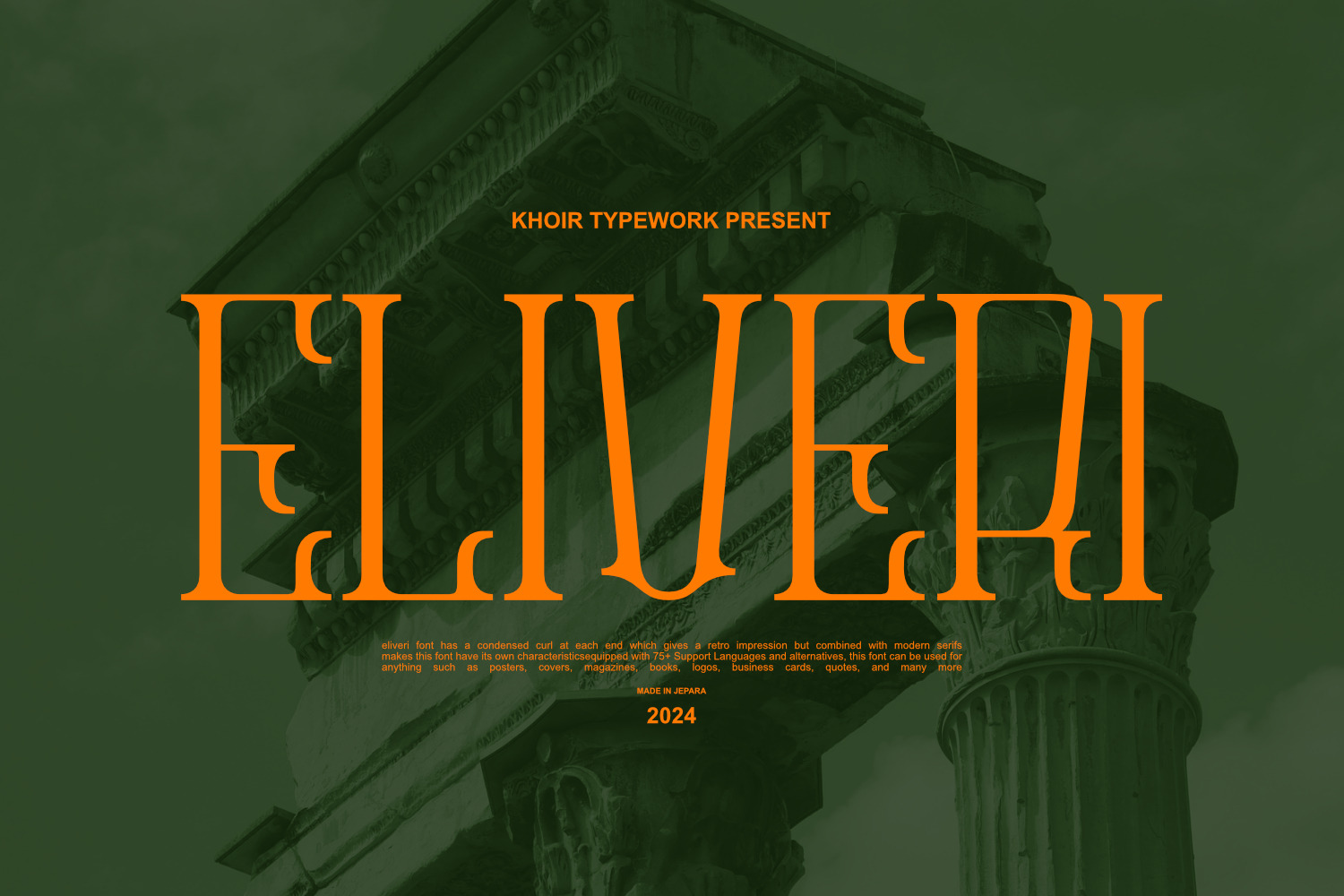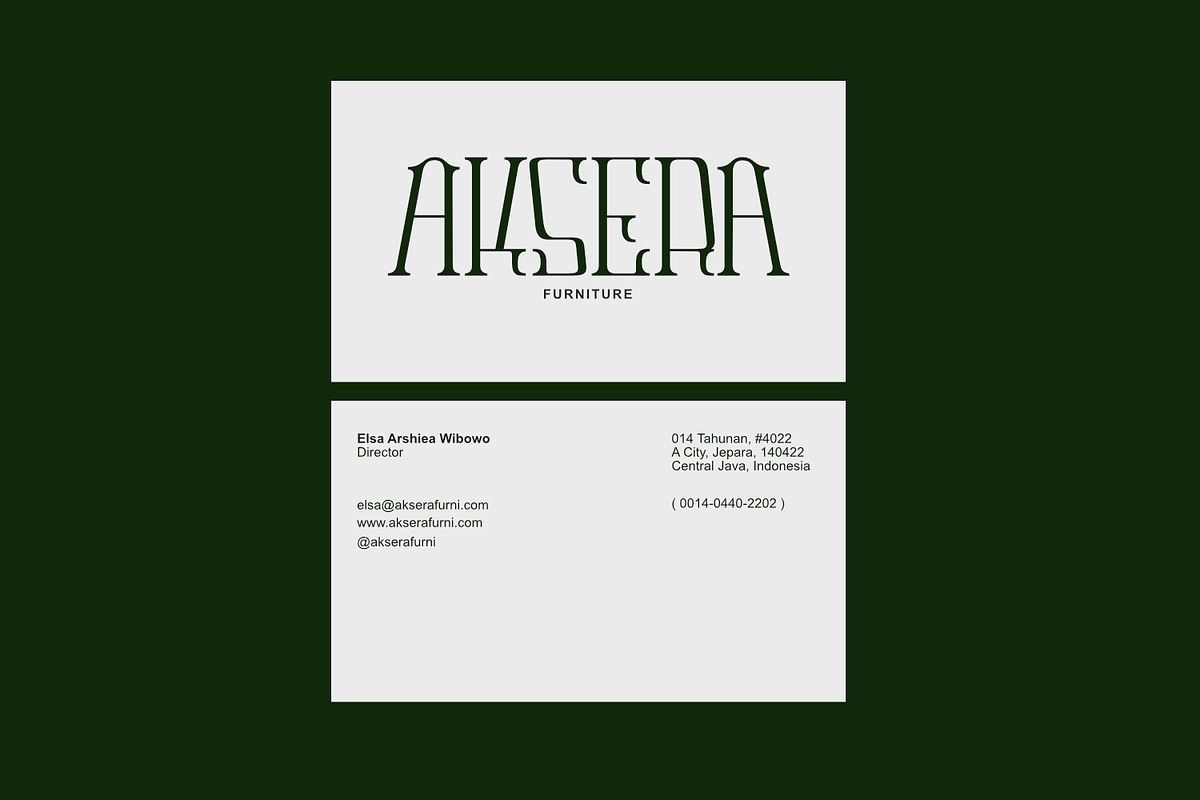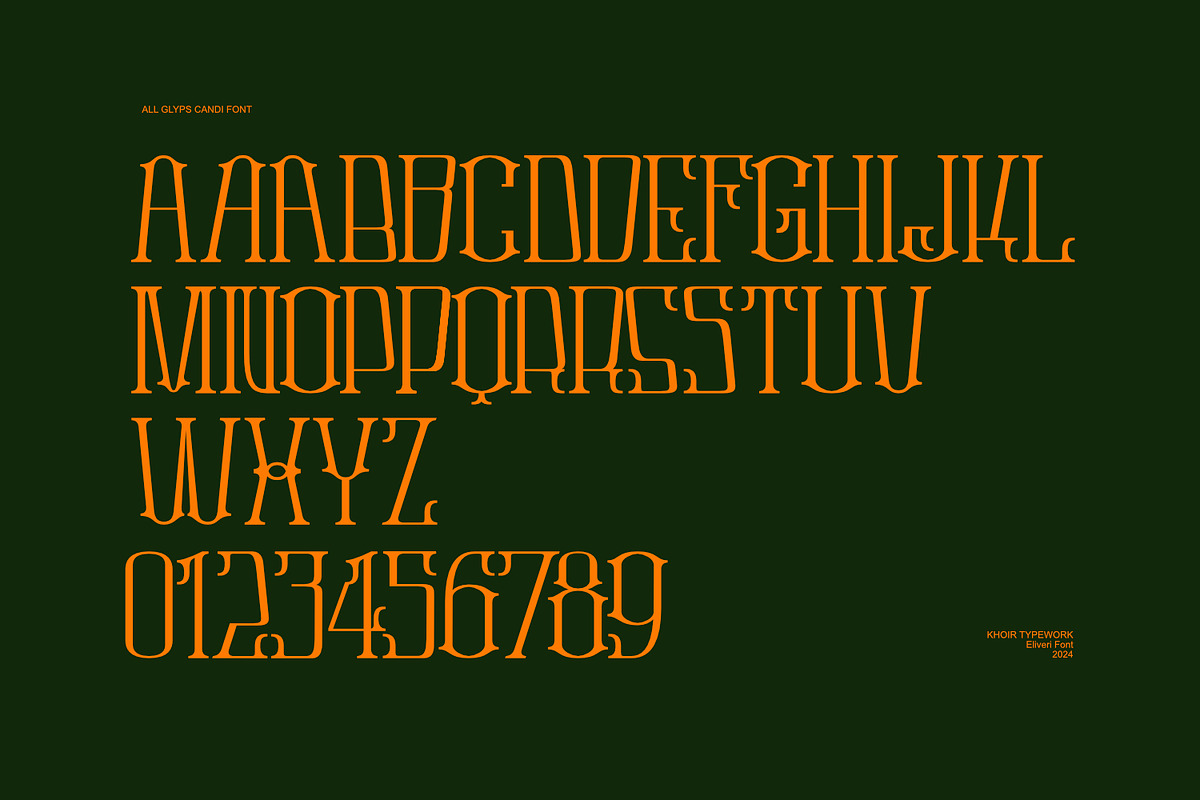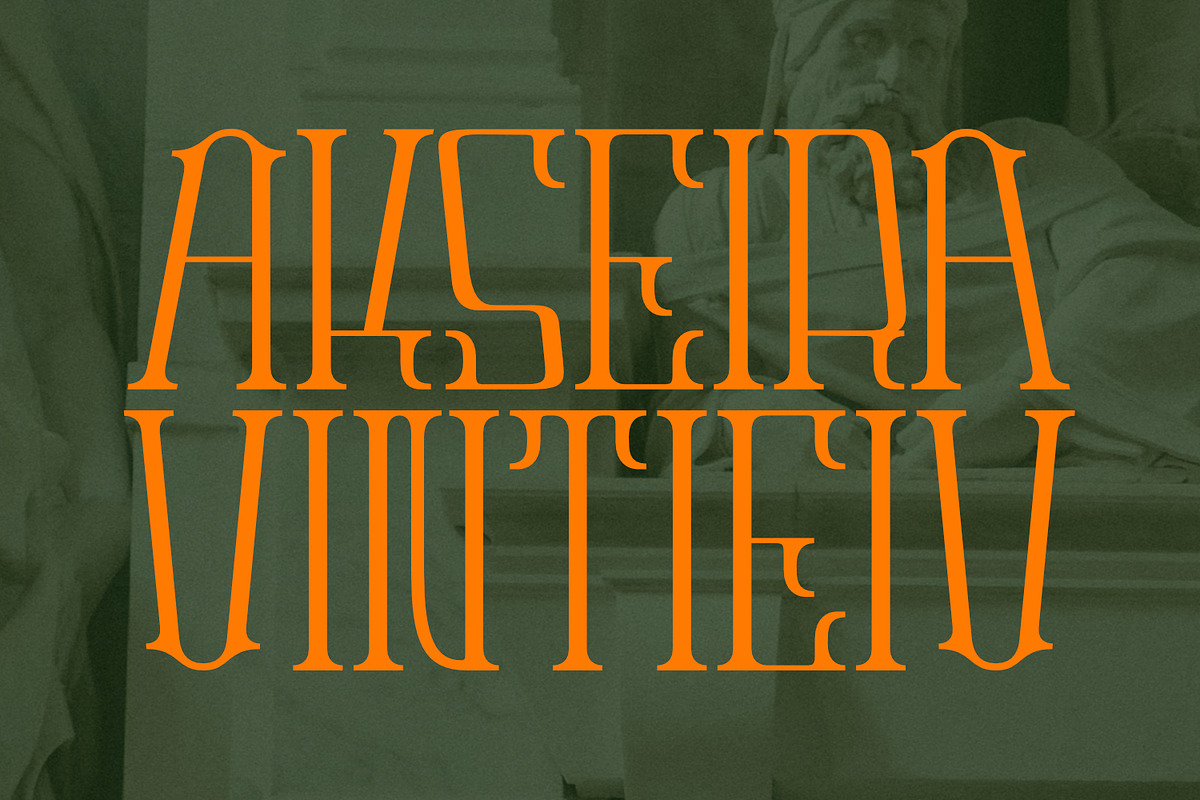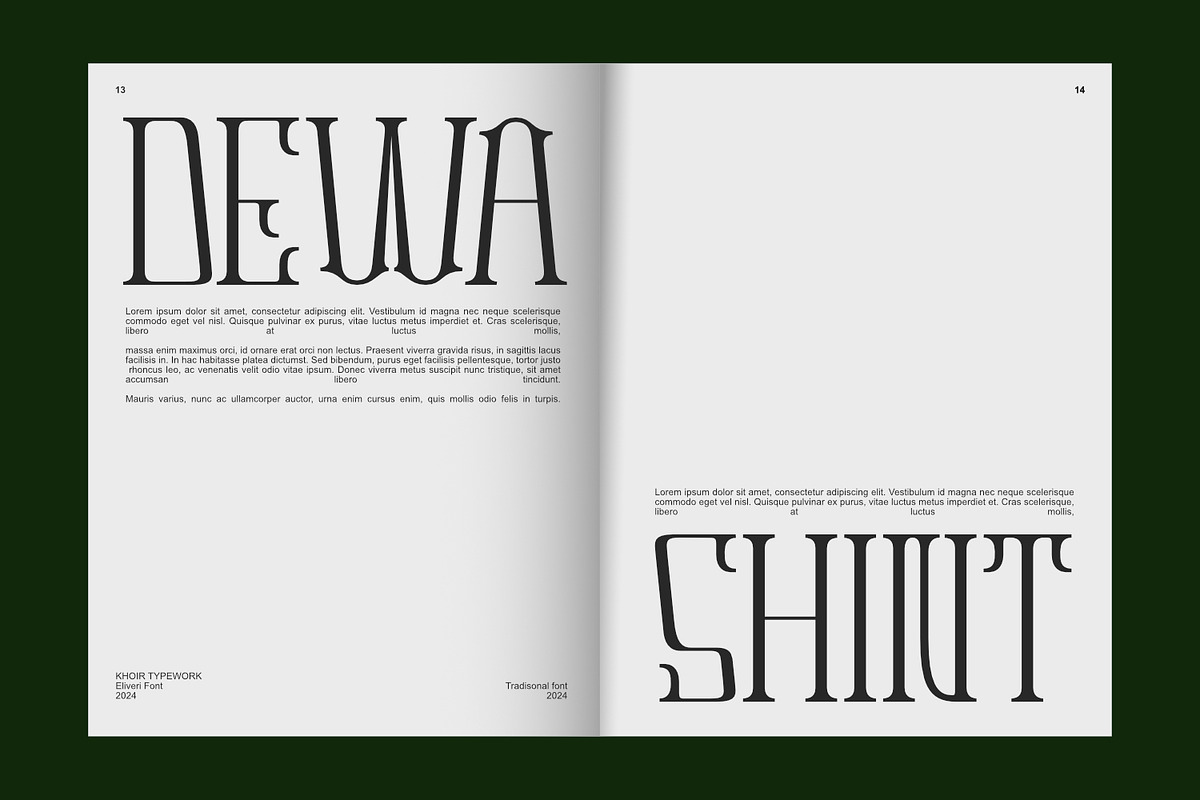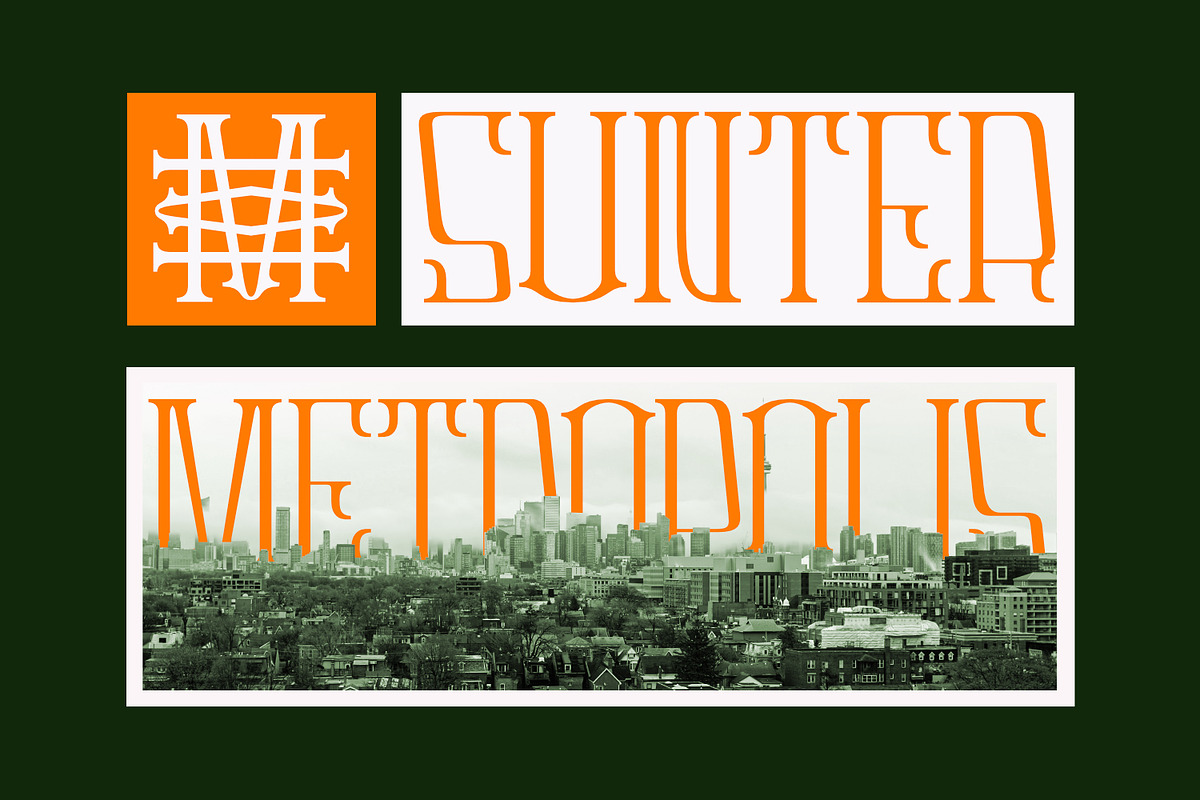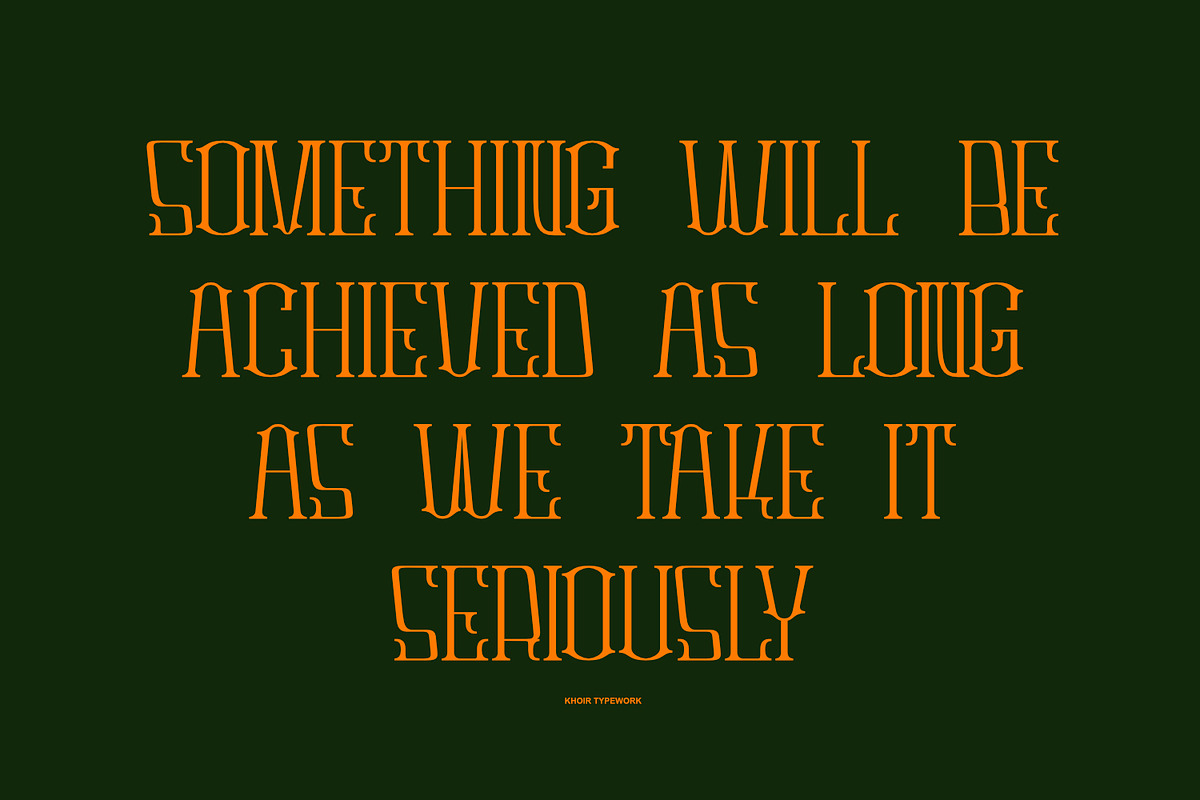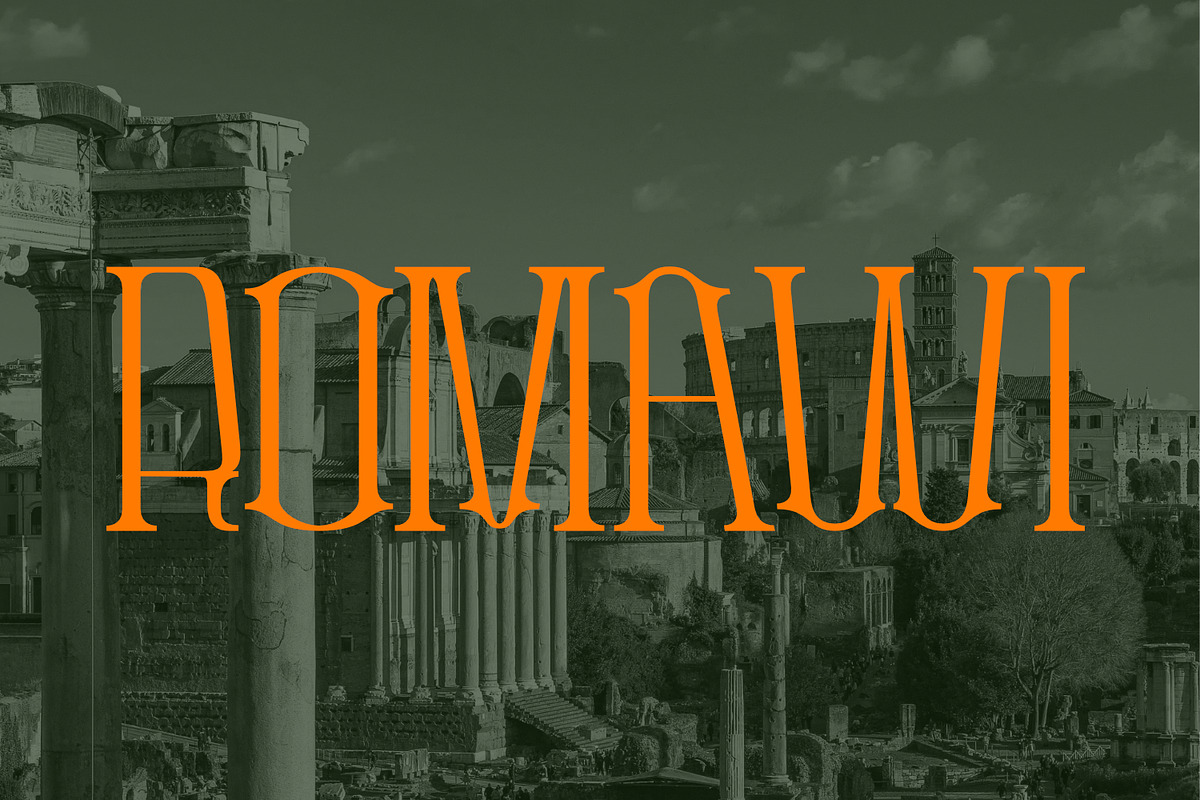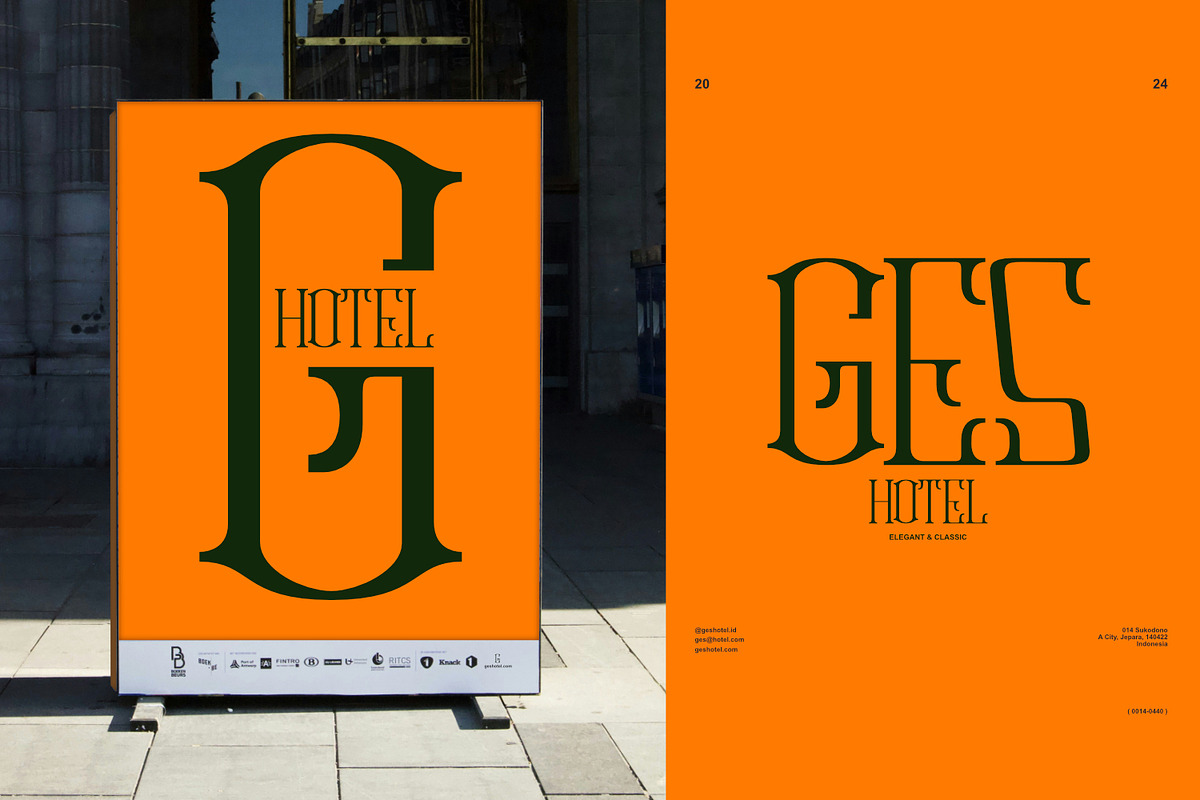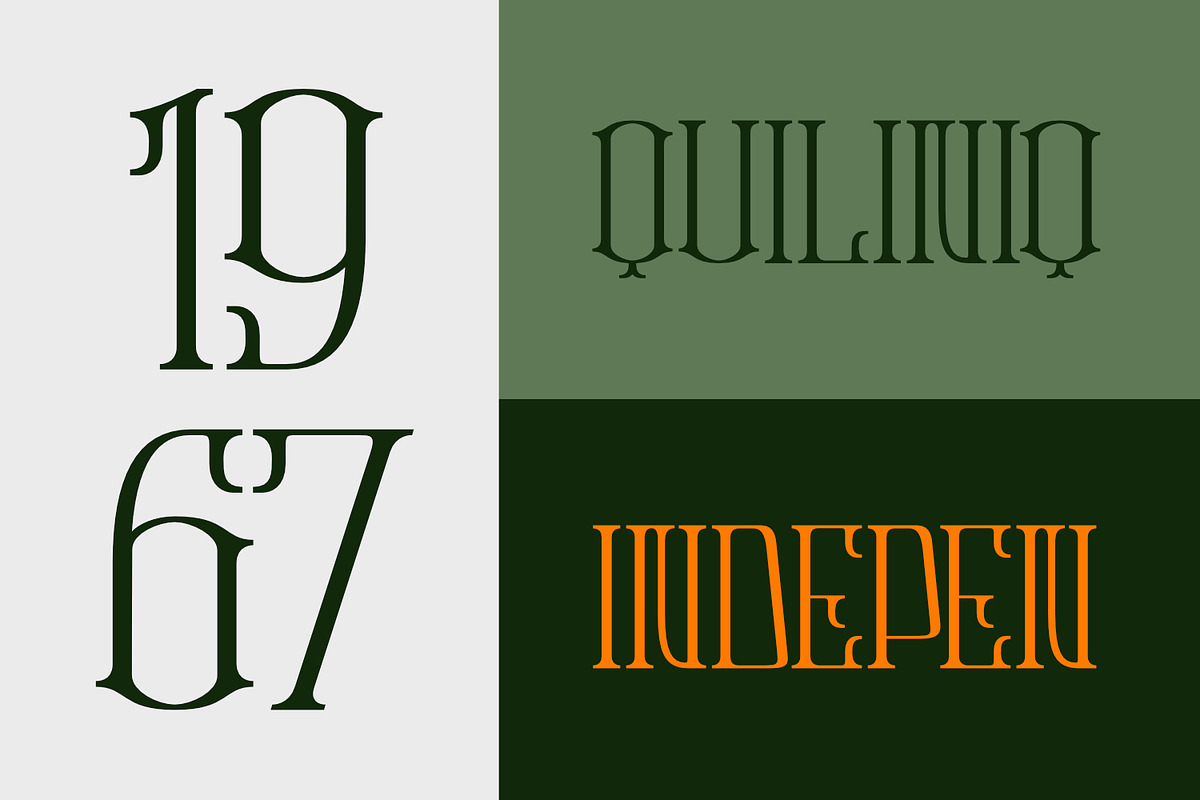
Eliveri Classic Font
Eliveri font has thick curls at each end, giving it a retro impression but combined with a modern serif makes this font have its own characteristics. Equipped with 75+ Supporting Languages and alternatives, this font can be used anything like posters, covers, magazines, books, logos, business cards, quotes, and much more.
- 75+ Language